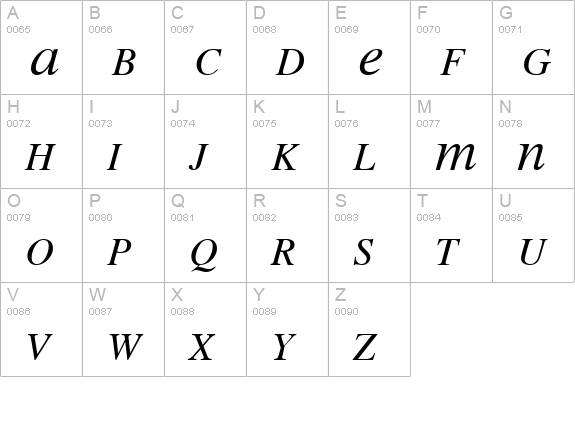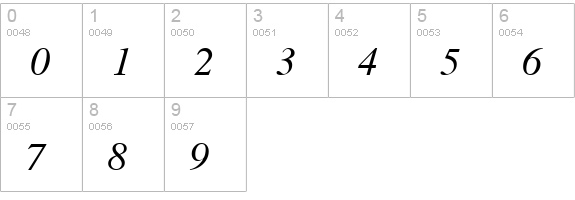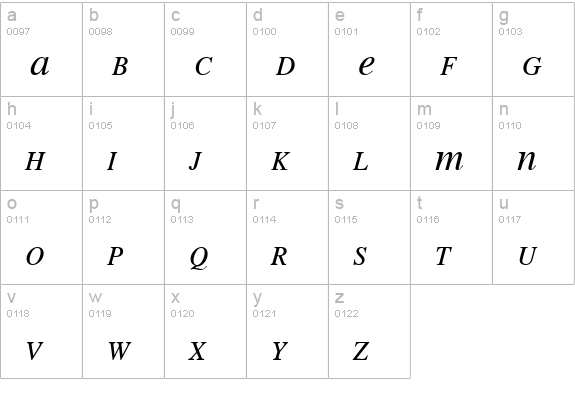
MEAN 26 Italic Font Details
MEAN 26 Italic is a distinctive, italic variant in the MEAN typeface family \xE2\x80\x94 well suited to design and typography projects.
MEAN 26 Italic font is a sleek and modern typeface that exudes sophistication and elegance. With its bold strokes and unique design, this font is perfect for adding a touch of style to any project. Whether you're working on a professional presentation or designing eye-catching graphics, MEAN 26 Italic font is sure to make a statement. And the best part? It's completely free to download at FontsMarket.com! Simply visit the website and start using this stunning font in your projects today. Don't miss out on the opportunity to enhance your designs with the striking MEAN 26 Italic font – download it now and elevate your creative work to the next level.